My Little Pony in font dispute
My Little Pony, those toys for little girls, are in a legal dispute over a font.
TorrentFreak is reporting that Hasbro, owners of My Little Pony are being sued over the unauthorized use of a font.
Font Brothers have the rights to sell GenerationB, described as “a playful and offbeat font with a late 50s-early 60s vibe that goes from beatnik coffeehouse to rustic beach shack.”.
Hasbro is accused of using the font and refusing to pay for a licence. The use is clear from this image from their web site and especially the web code that creates the page.
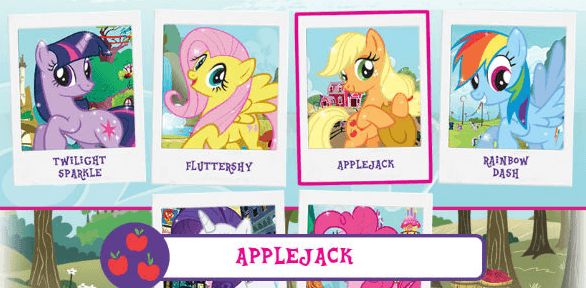
Hasbro has now changed their web code to remove the offending font from http://mylittlepony.hasbro.com/css/spring2016.css but it’s too late since there’s plenty of evidence of the previous CSS that clearly linked to GenerationB.